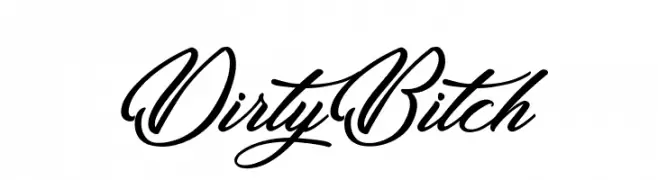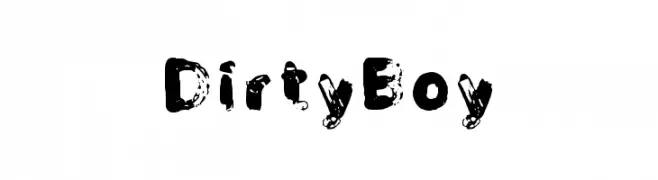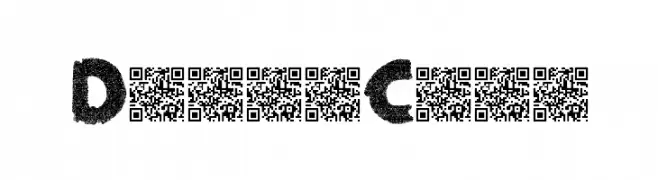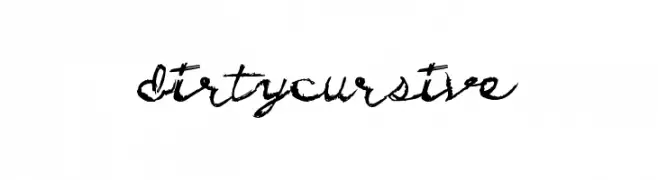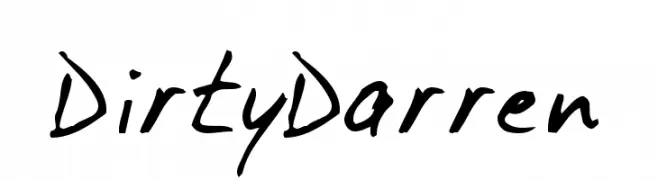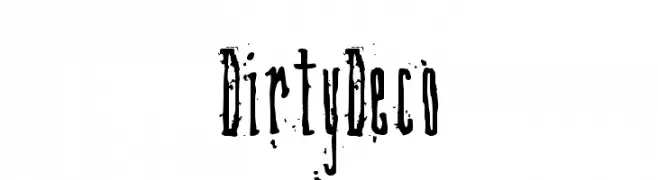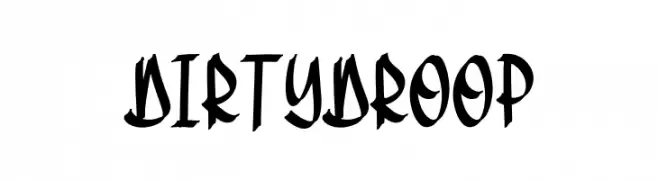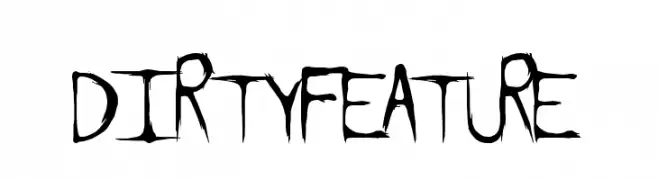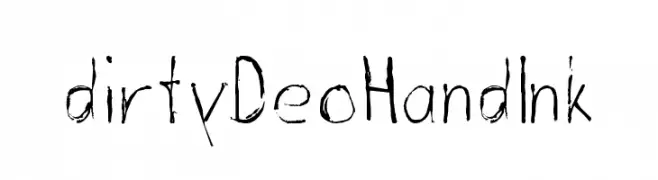
A sophisticated script font with flowing, interconnected letters and elegant flourishes.
A bold, distressed font with a grungy, urban aesthetic.
A bold, textured font with a rugged, brush-stroke appearance.
A distressed, textured cursive font with a dynamic, handwritten appearance.
A bold, hand-drawn font with energetic, brush-like strokes.
A hand-drawn, ink-like font with a raw and organic feel.
A bold, hand-drawn font with an expressive and playful style.
A bold, distressed font with a grungy, rebellious style.